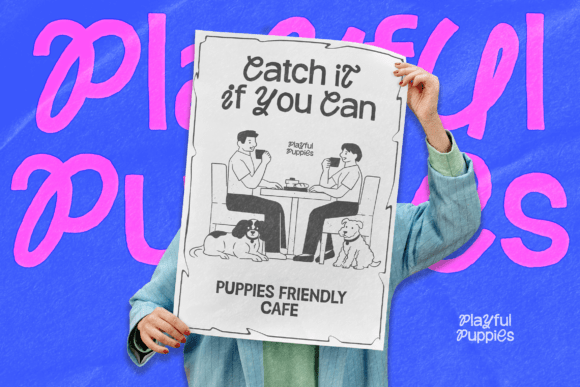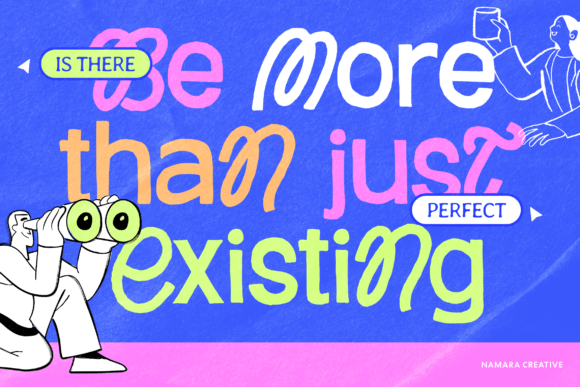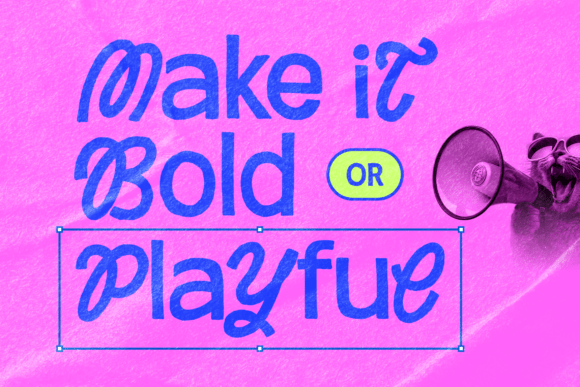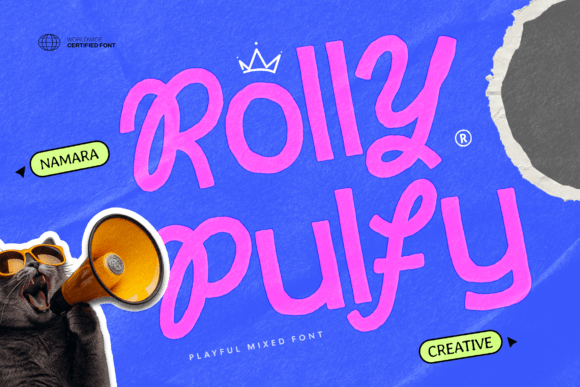
Introduction to Rolly Pulfy Font
Playful hybrid sans typeface designed to bring joy, personality, and modern charm into your designs.
Blending clean sans-serif structure with hand-drawn, rounded letterforms, Rolly Pulfy strikes a perfect balance between bold clarity and friendly expression Crafted for creatives who want their typography to feel lively yet professional, Rolly Pulfy works beautifully across branding, packaging, posters, social media, merchandise, and editorial layouts.
Key Features of Rolly Pulfy Font
Why Choose Rolly Pulfy Font?